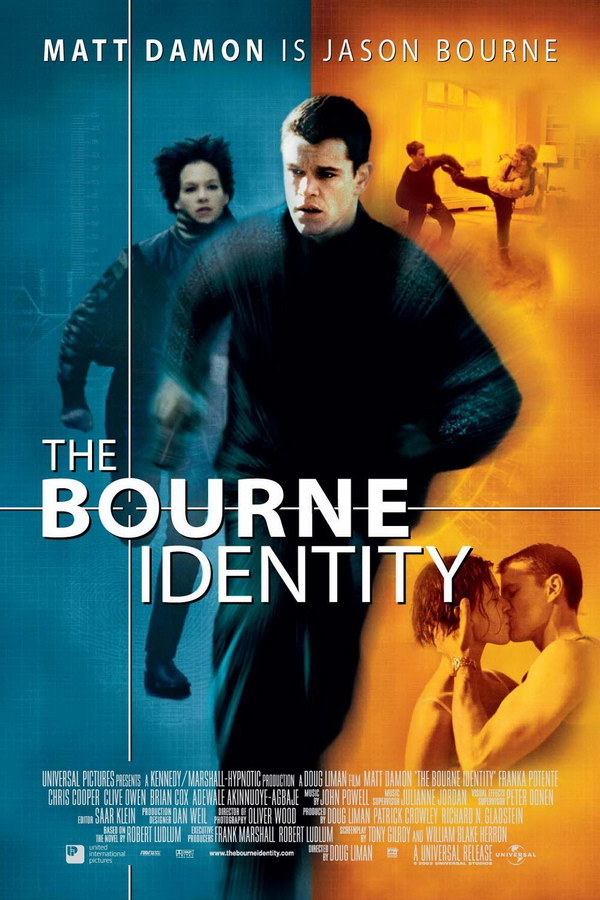
The Bourne Identity Font
ActionThe Bourne Identity is a 2002 action-thriller film based on Robert Ludlum's 1980 novel. It was directed and co-produced by Doug Liman. It stars Matt Damon as Jason Bourne, a guy with psychogenic amnesia who is trying to figure out his true identity while caught up in a covert CIA scheme.
In the poster, the title Bourne Identity is probably set in Myriad. Myriad Bold is used for "Bourne," but Myriad Regular is used for other texts. Myriad is a commercial typeface and you can view more details about it here.